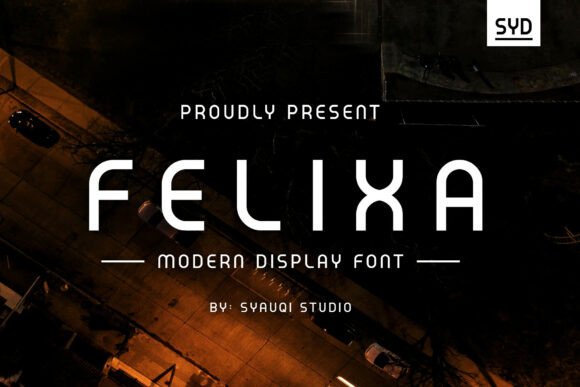
Introducing Felixa Font: The Epitome of Modern Display Typography
In the realm of typography, the quest for a font that embodies modernity and innovation is a perpetual pursuit. For designers and creatives, the right font can elevate a project from mundane to extraordinary, injecting it with a distinct personality and aesthetic. This is where Felixa Font comes into play, a meticulously crafted modern display font designed to revolutionize the way you approach your creative projects.
The Essence of Felixa Font
At its core, Felixa Font is a celebration of modernity. Its sleek, cutting-edge design is not just visually appealing but also a reflection of the precision and sophistication that contemporary design demands. The font’s clean lines and geometric forms are a testament to its versatility, making it an ideal choice for a myriad of graphic applications. Whether you’re working on branding, advertising, digital media, or editorial designs, Felixa Font is poised to become an indispensable part of your design toolkit.
Unleashing Creativity with Felixa
Felixa Font is more than just a typeface; it’s a creative catalyst. Its bold, forward-thinking aesthetic is designed to inspire, allowing designers to push the boundaries of their imagination. With Felixa, you can transform your projects, infusing them with a sense of futurism and dynamism. The font’s modern appeal ensures that your designs stand out in a crowded digital landscape, making it perfect for projects that demand a fresh, contemporary look.
Versatility at Its Best
One of the standout features of Felixa Font is its incredible versatility. Its clean and geometric design makes it suitable for a wide range of applications, from digital interfaces to print materials. Here are some of the areas where Felixa truly shines:
- Branding: Create a lasting impression with a logo or brand identity that exudes modernity and sophistication.
- Advertising: Elevate your ad campaigns with a font that grabs attention and communicates your message effectively.
- Digital Media: Enhance your website, social media posts, and digital content with a font that resonates with the digital age.
- Editorial Designs: Add a touch of modern elegance to magazines, newspapers, and editorial content.
The Design Philosophy Behind Felixa
The design of Felixa Font is rooted in a deep understanding of modern aesthetics and the needs of contemporary design. Its creators aimed to produce a font that not only looks good but also enhances the readability and impact of the text. By combining sleek lines with geometric precision, Felixa achieves a perfect balance between form and function.
Why Choose Felixa Font?
In a world filled with countless fonts, why should Felixa Font be your go-to choice? Here are a few compelling reasons:
- Unique Aesthetic: Felixa offers a fresh and unique look that sets it apart from more traditional fonts.
- High Versatility: Its adaptability across various platforms and mediums makes it a valuable asset for any designer.
- Enhanced Readability: Despite its modern and sleek design, Felixa maintains high readability, making it suitable for both headings and body text.
- Future-Proof: With its forward-thinking design, Felixa is poised to remain relevant for years to come, ensuring your designs stay contemporary.
Felixa Font is a game-changer in the world of typography. Its modern design, versatility, and readability make it an essential tool for designers looking to make a statement. Whether you’re working on a branding project, advertising campaign, or digital content, Felixa is ready to elevate your creative projects to new heights. Embrace the future of design with Felixa Font and discover a world of limitless creative possibilities.
Felixa Font – A Testament to Modern Design
In conclusion, Felixa Font stands as a testament to the evolution of modern design and typography. It’s not just a font; it’s a statement of intent, a reflection of innovation, and a tool that empowers designers to push the boundaries of creativity. As we continue to navigate the ever-changing landscape of design, fonts like Felixa lead the way, setting new standards and inspiring future generations of designers.
FAQs About Felixa Font
- What is Felixa Font?
- Felixa Font is a modern display font designed to bring a sleek, cutting-edge aesthetic to creative projects.
- Is Felixa suitable for body text?
- While Felixa excels in display settings, its readability also makes it suitable for shorter body text passages.
- How does Felixa contribute to modern design?
- Felixa contributes to modern design by offering a clean, geometric, and futuristic aesthetic that aligns with contemporary design trends.